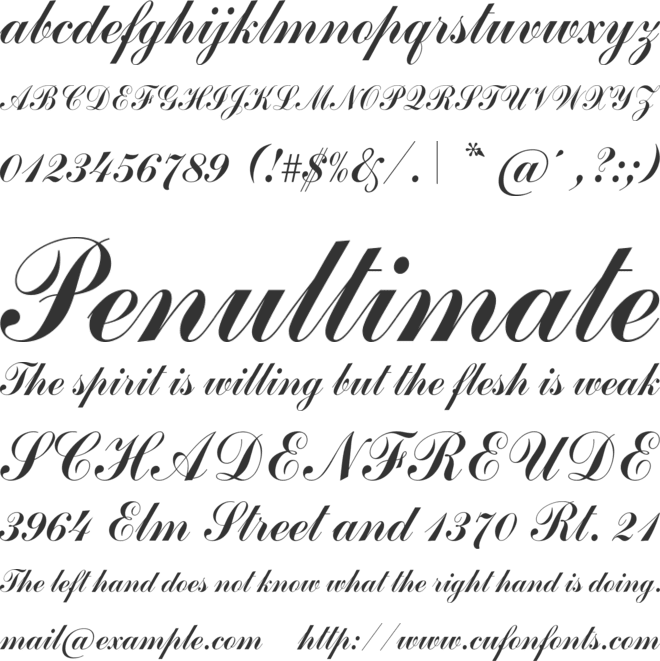
Commercial Script Com Font
Commercial Script is an elegant connecting alphabet based on formal handwriting. Use the Commercial Script font in advertising, invitations, greeting cards, and wherever a formal hand-lettered or engraved look is desired.